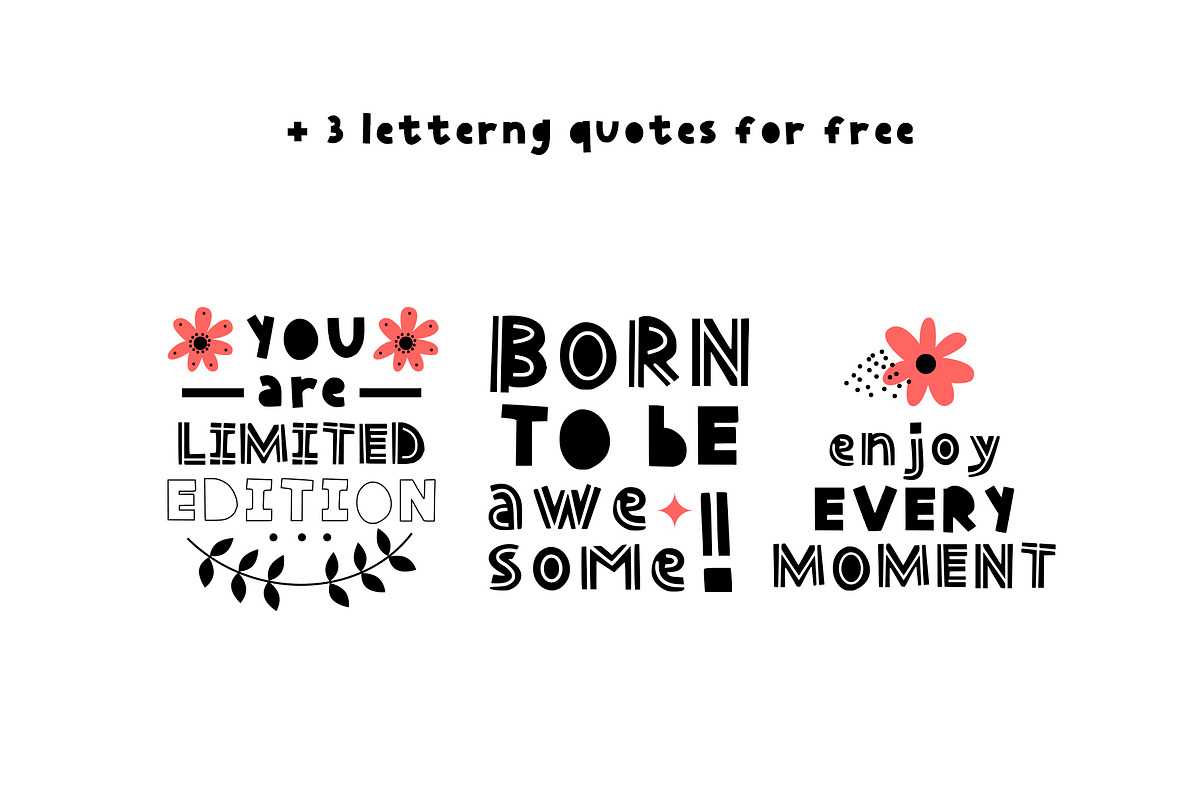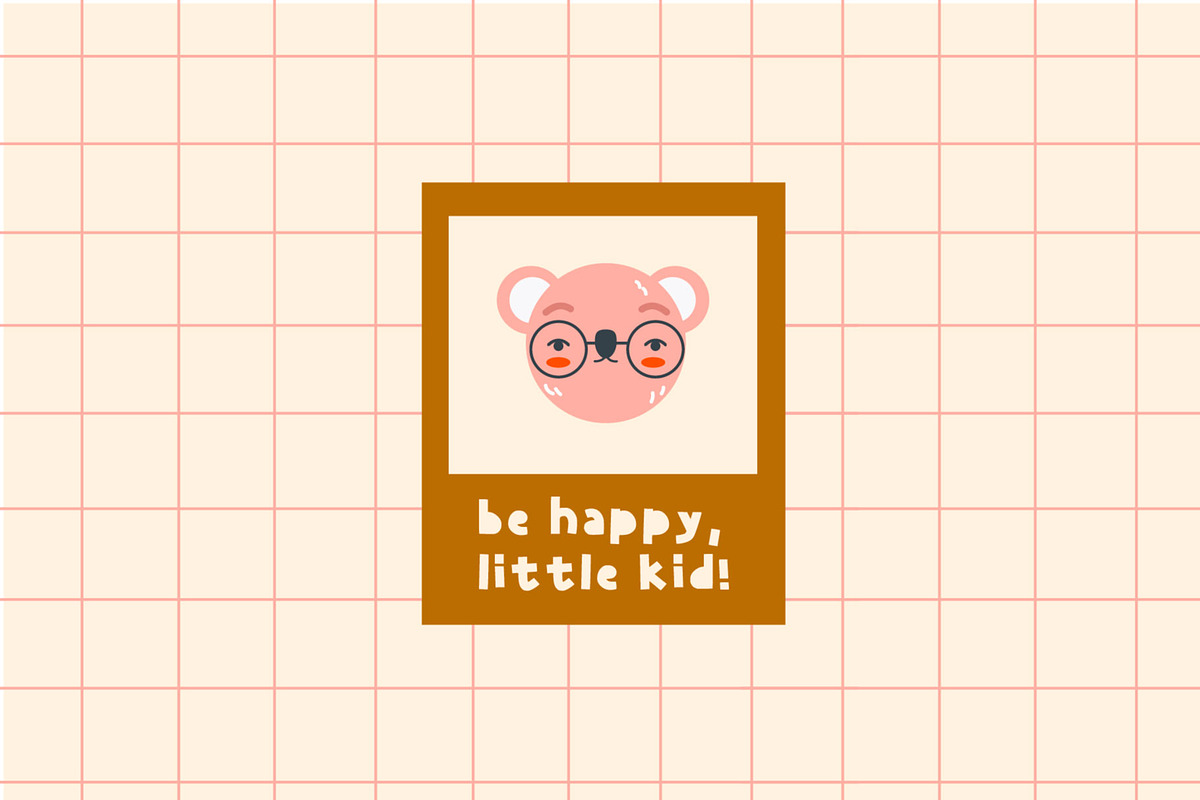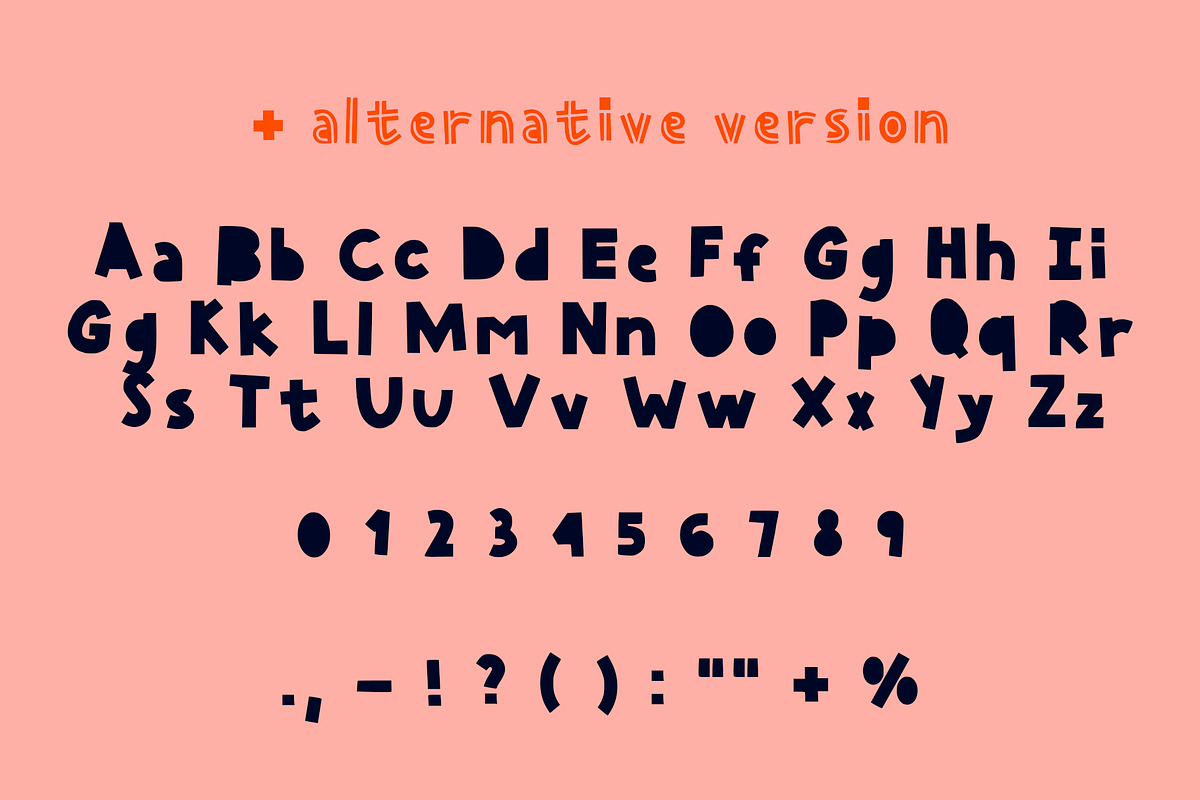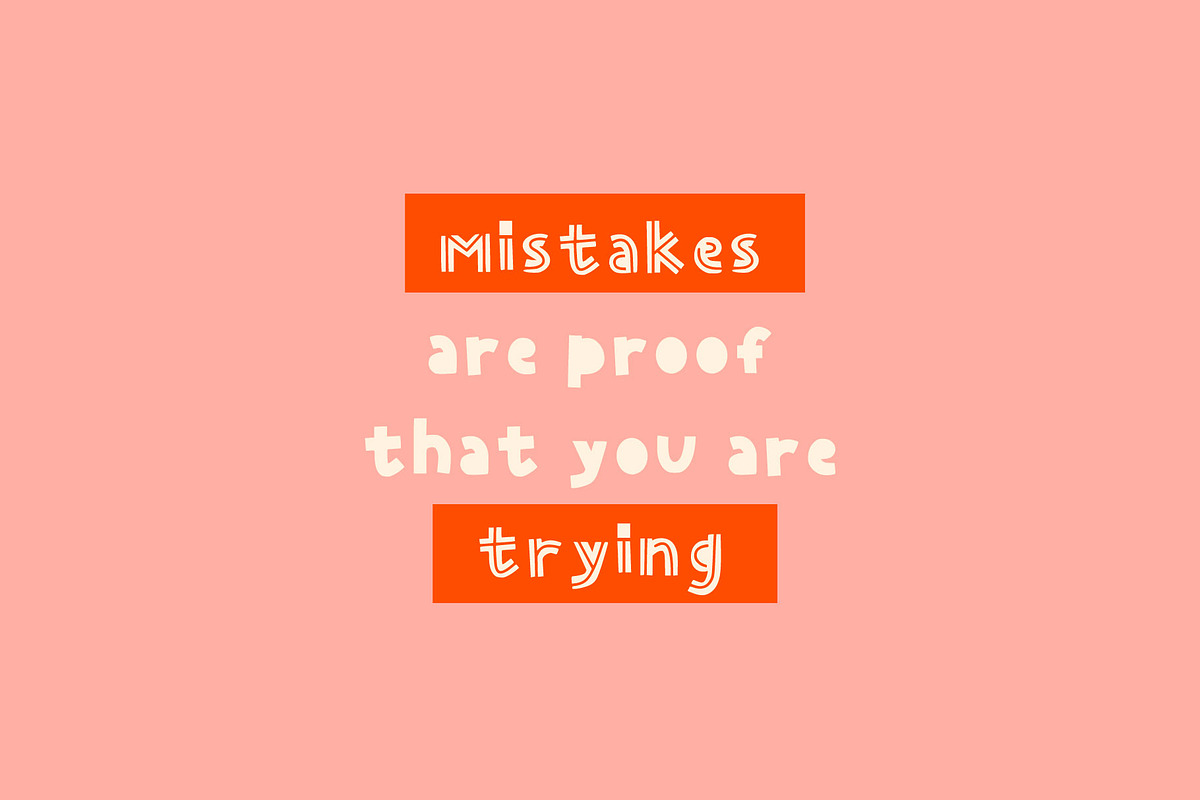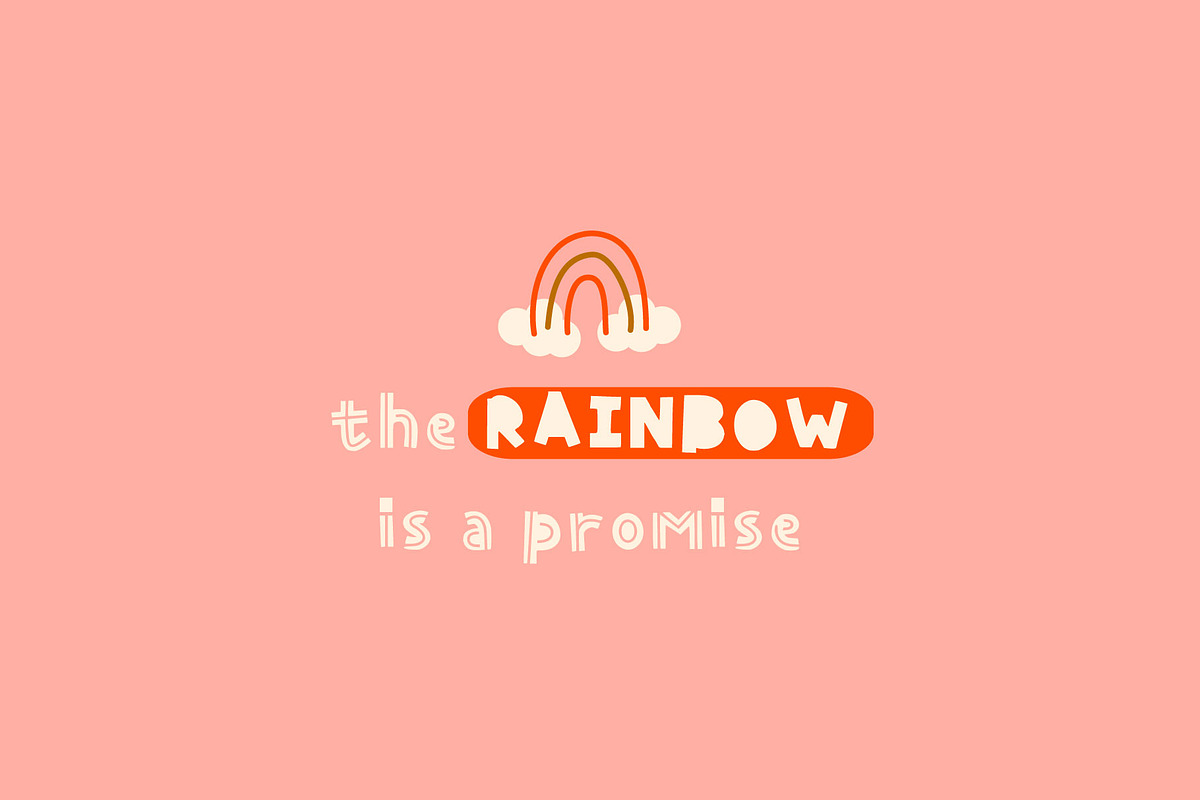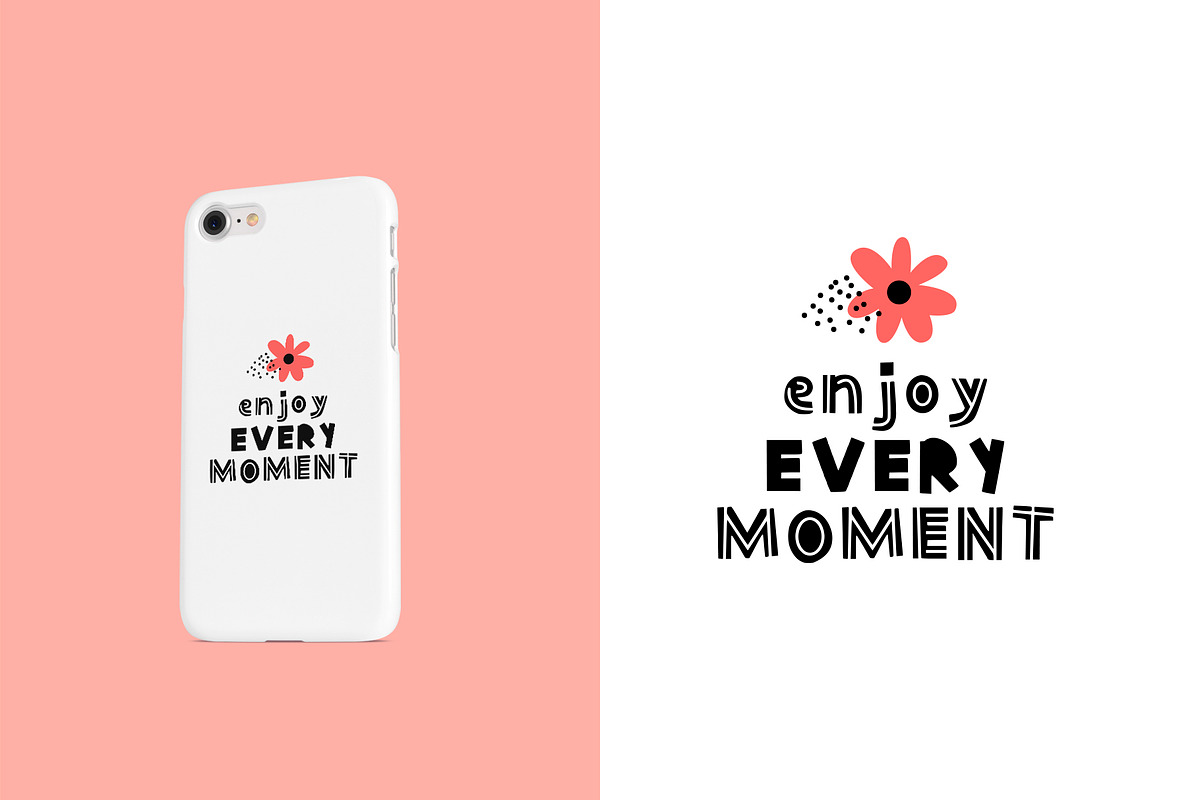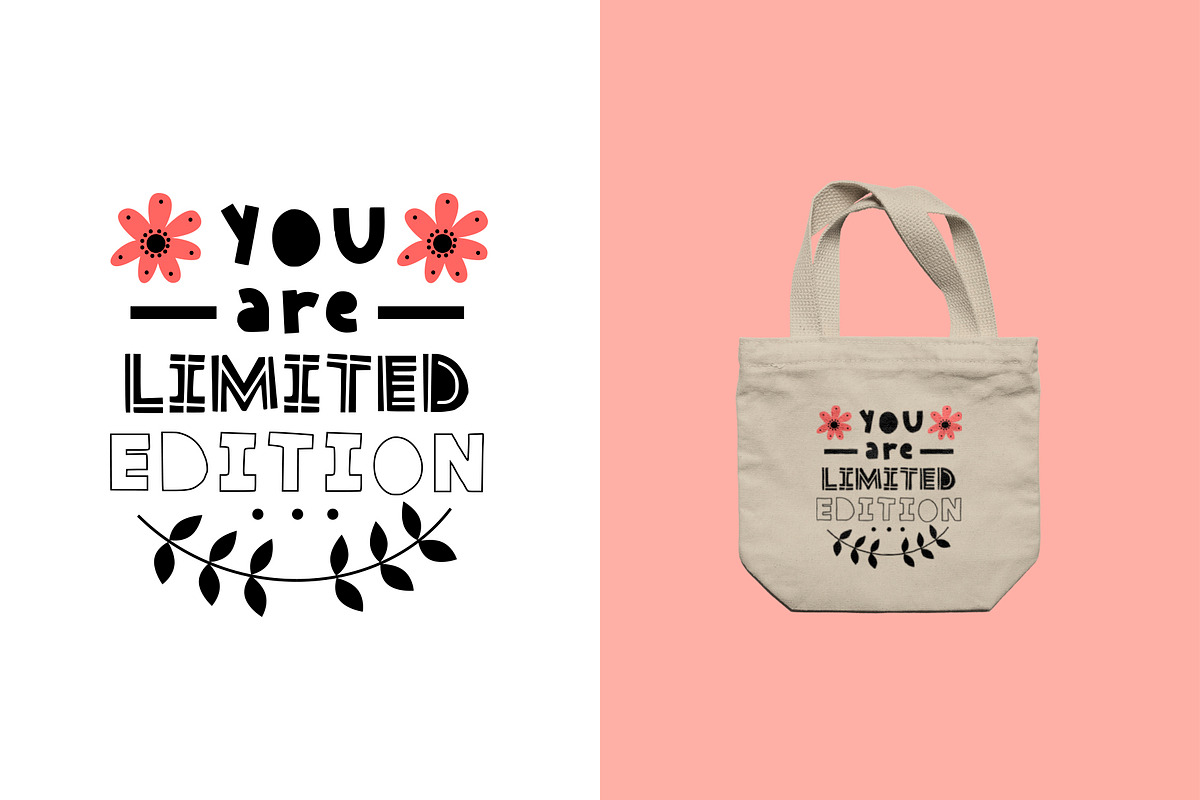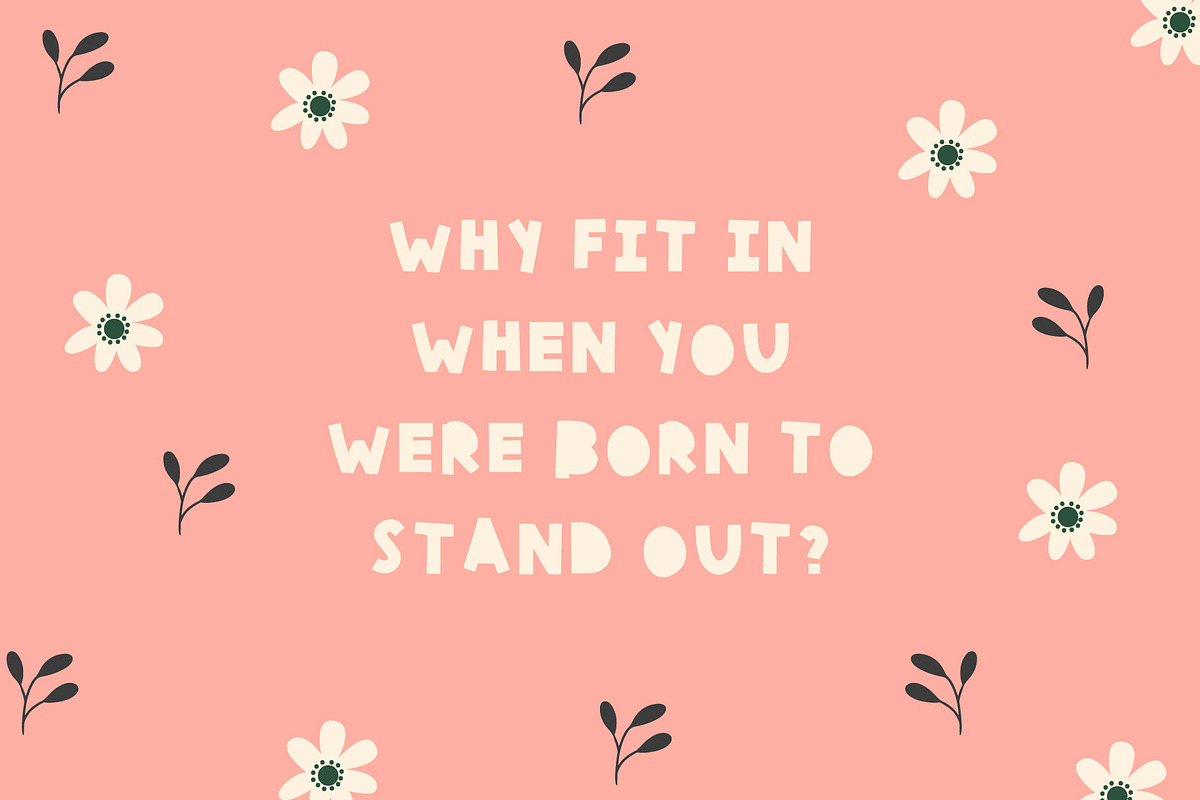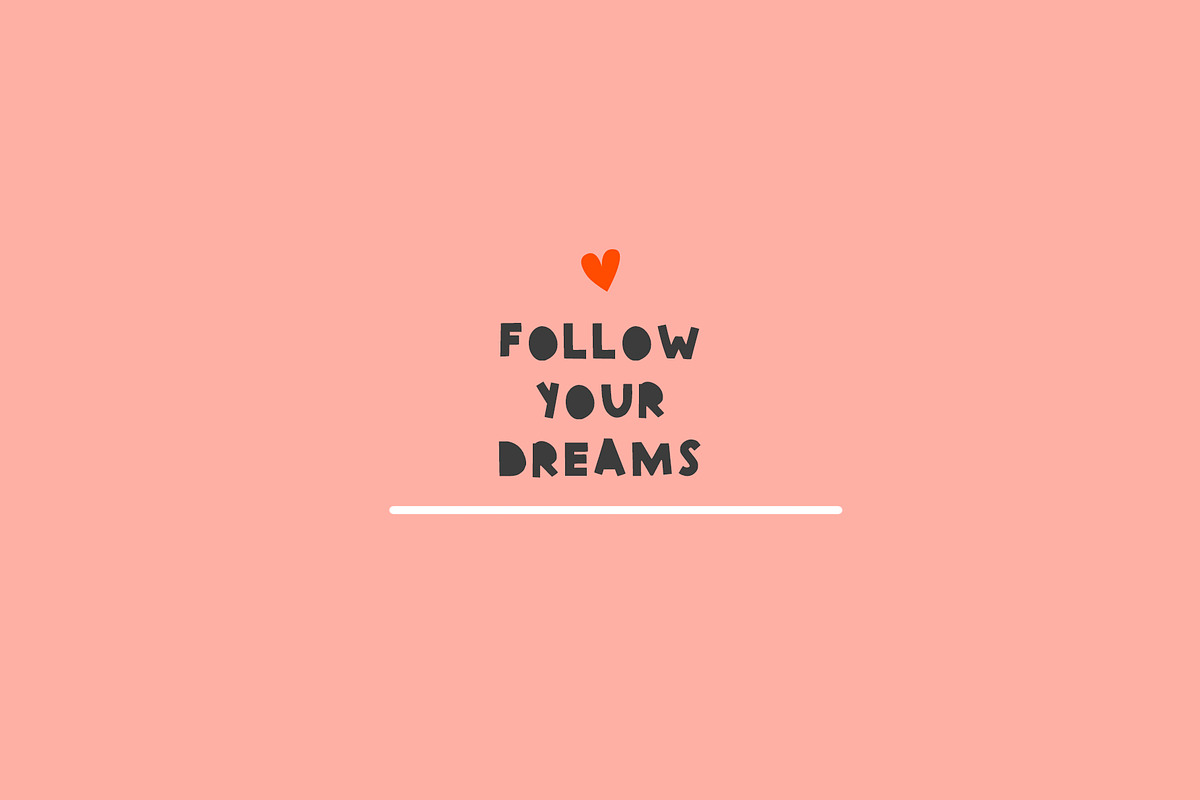
BabyBold Font for KID'S
You can use it for quotes, posters, social media ads, postcards, and much more! Add a hand-written touch to your projects and make them more fun! It works perfectly for headlines.
This font can be used to create fun, beautiful, and outstanding things!